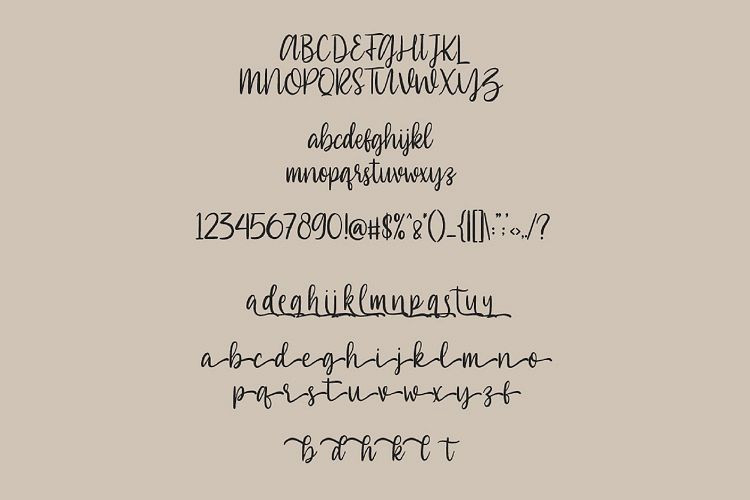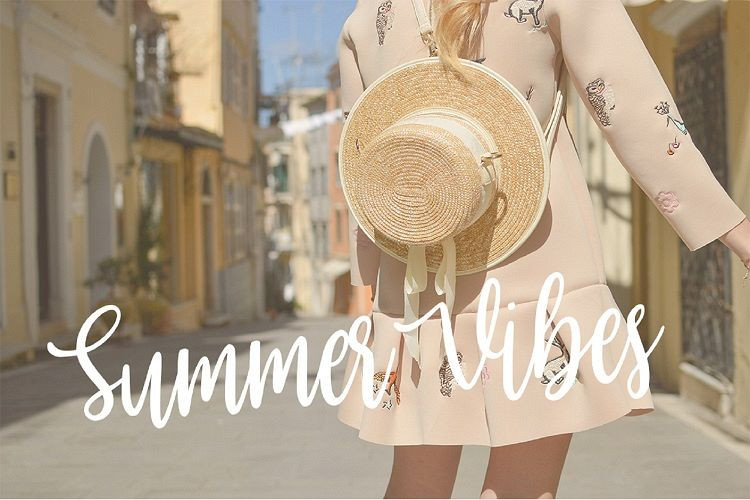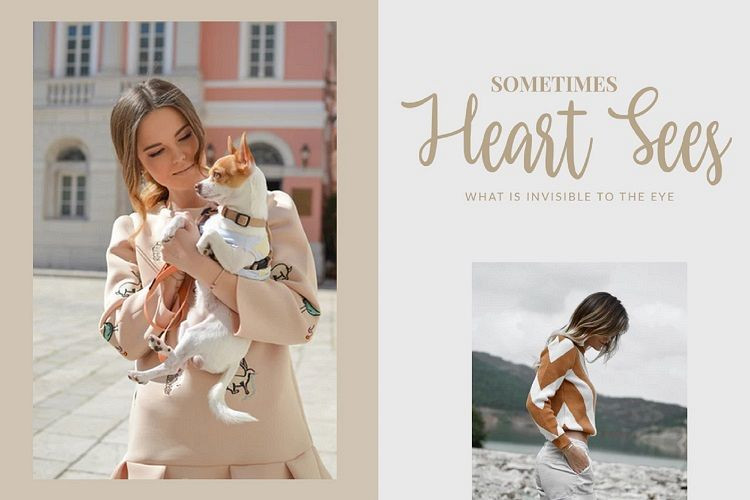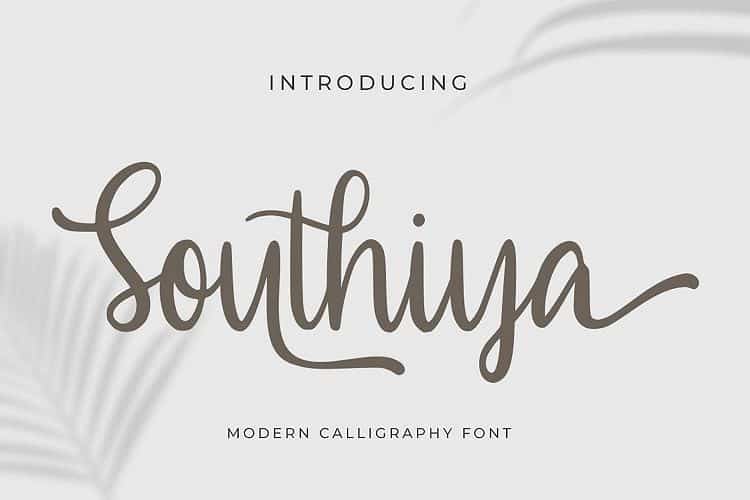
Southiya Script – Demo Font
Hello guys. This is hand lettering modern calligraphy fonts, It’s perfect for all things design! Introducing Southiya Font. It’s designed and shared by Stringlabscreative. This Font can be used for any variety of purposes, such as: Photography, Wedding, Feminim Style, Beauty Style Packaging Products, Logo Type, Branding, T-Shirt Design, Website/Blog, Headline Magazine, Brochures and also can be used for personal purpose. This Font Template contains Modern, Elegant, creative, Professional and Unique Concept.